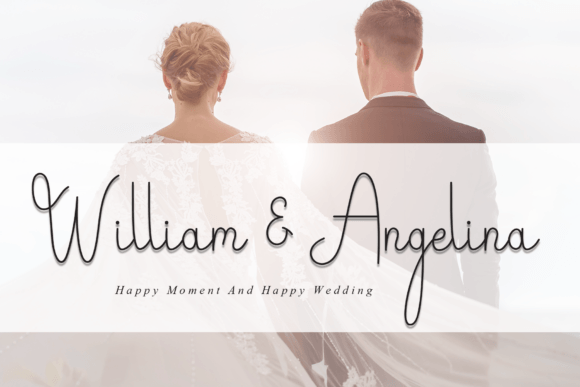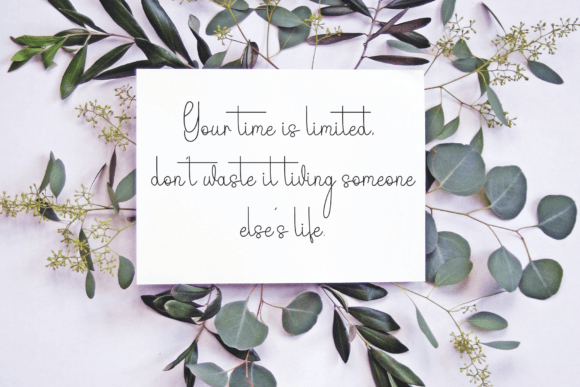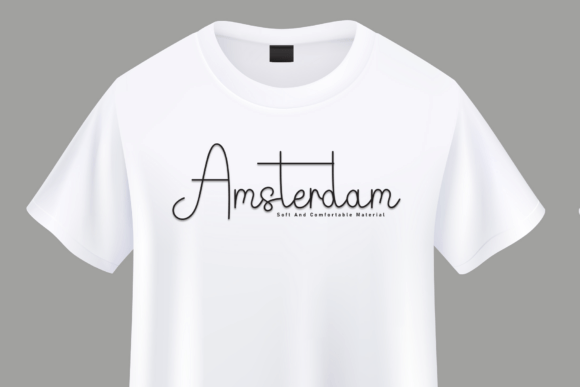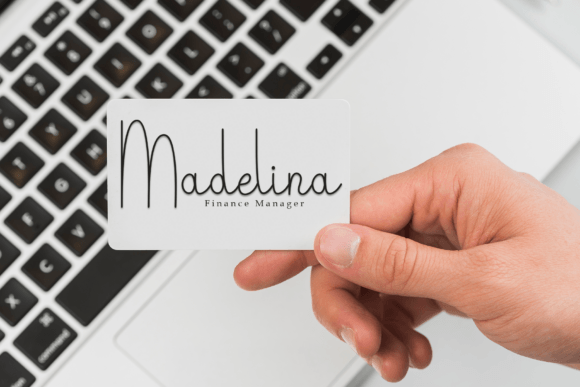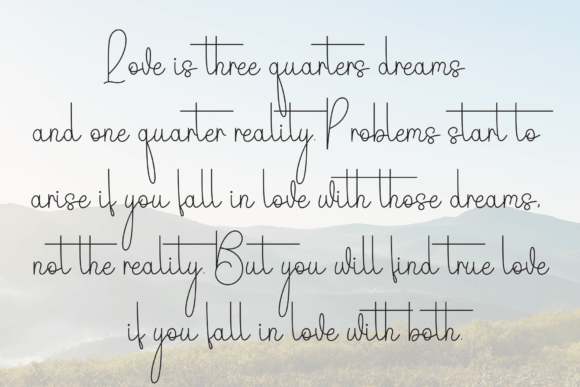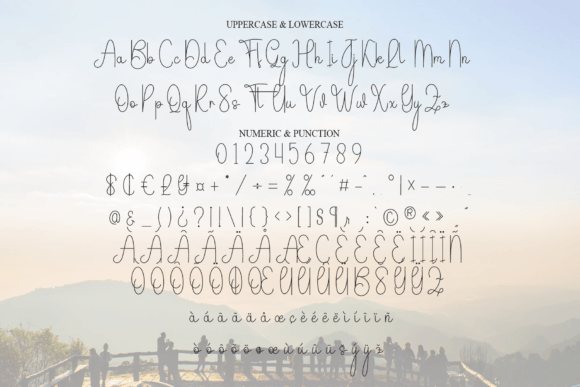
Introducing Gather Font: The Sweet and Playful Display Font You Need
Have you ever been in the middle of a design project, and suddenly, you just can’t seem to find the right font? I recall a particularly frustrating moment when I was working on a wedding invitation design. My client wanted something that was both elegant and playful, but I just couldn’t seem to find a font that fit the bill. That’s when I stumbled upon Gather Font, and let me tell you, it was love at first sight! 💕
This affectionately penned display font is endearingly sweet and amiable in its form. Imbued with a playful charm, Gather Font breathes life into your wedding invitations, thoughtfully crafted cards, or any design project that seeks an infusion of lighthearted enjoyment. In this article, we’ll dive into the world of Gather Font, exploring its features, how to use it, and where it fits into your design toolkit.
An Honest Review of Gather Font
- ✅ Unique and playful character set that’s perfect for creative projects
- ✅ Beautifully crafted with a high level of detail and attention to design
- ✅ Works well for both digital and print designs, including wedding invitations, greeting cards, and more
- ✅ Easy to read and understand, even at smaller font sizes
- ⚠️ Limited use for body text due to its display font nature
- ⚠️ May not work well for very formal or traditional designs
The Backstory of Gather Font
Gather Font was designed with love and care by a talented type designer who wanted to create a font that would bring joy and playfulness to creative projects. Inspired by traditional handwriting and calligraphy, Gather Font is the perfect blend of modern and classic design elements.
Q: What is Gather Font best used for?
A: Gather Font is best used for creative projects that require a playful and elegant touch, such as wedding invitations, greeting cards, and more.
Q: Is Gather Font easy to read?
A: Yes, Gather Font is designed to be easy to read and understand, even at smaller font sizes.